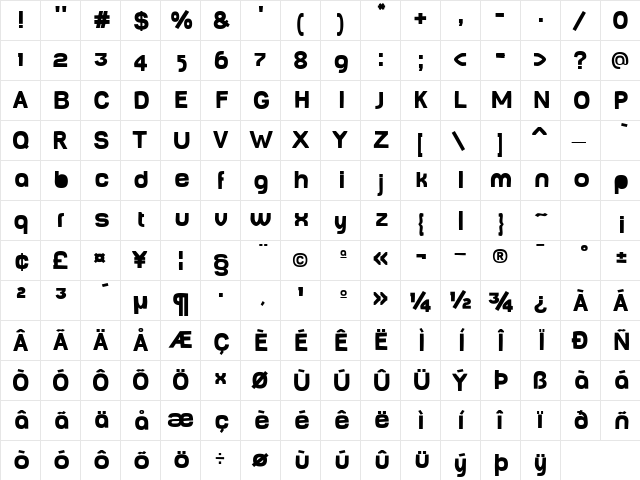
BabyMine Fat
Design Context for BabyMine Typeface
BabyMine takes a measured approach to typography — its balanced proportions and neutral character make it a reliable workhorse for both digital and print work.